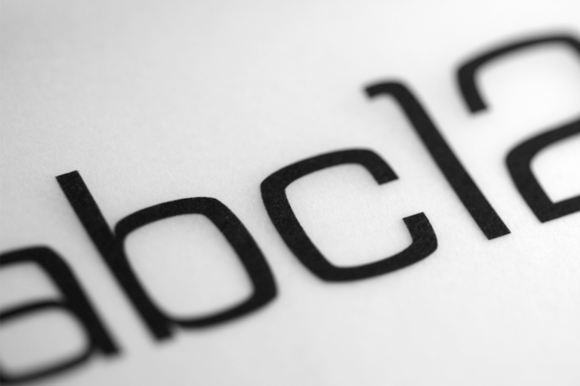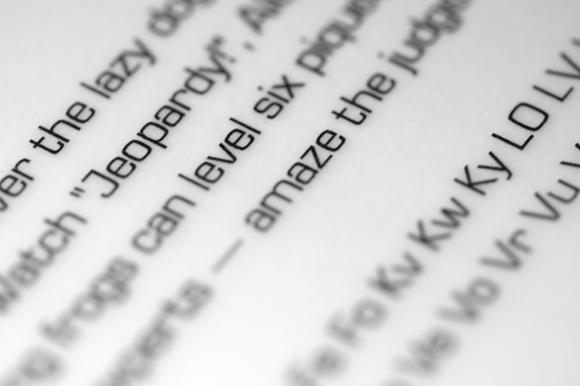
Unleashing the Power of Minimalism: Introducing Gamba Font
Have you ever stared at a blank page, waiting for the perfect font to bring your design to life? For designers, this moment of creative paralysis is all too familiar. But what if the perfect font was right in front of you, waiting to be discovered? Enter the Gamba Font, a game-changing typeface that combines futuristic shapes with high legibility and a utilitarian design.
Designed to create strong and clean layouts, the Gamba Font is more than just a pretty face. Its unique blend of personality and functionality makes it a valuable asset for designers looking to elevate their work. Whether you’re a seasoned pro or just starting out, the Gamba Font is sure to inspire your next creative project.
Gamba Font Key Features
- Font Family: Gamba is a sans-serif font family designed for digital use. It includes 8 font weights and italics.
- Character Set: Supports a wide range of languages, including Latin, Cyrillic, and Greek alphabets, with over 1,000 glyphs.
- Resolution: Designed for use at high resolutions, making it suitable for digital applications such as web design, mobile apps, and video games.
- Unique Characteristics: Gamba features a unique blend of geometric and organic shapes, resulting in a clean and modern aesthetic.
Gamba Font Review
As a designer, I’ve had the chance to work with a variety of fonts, and I recently dove into the Gamba Font. Here’s my honest take on this typeface.
- Unique Character: Gamba Font stands out with its quirky and playful feel. It’s perfect for designs that need a touch of whimsy.
- Clean Lines: The font’s clean lines and smooth curves make it easy on the eyes, even in larger font sizes.
- Legibility: Despite its unique style, Gamba Font remains highly legible, making it suitable for a wide range of applications.
- Limited Weight Options: The font family is relatively small, with only a few weight options available. This might limit its versatility in certain design projects.
- Not Ideal for Body Text: While Gamba Font is great for headings and titles, it may not be the best choice for body text due to its relatively small character set and limited line spacing options.
Gamba Font is a fun and quirky typeface that’s perfect for adding some personality to your designs. While it has its limitations, its unique character and clean lines make it a great choice for the right projects. I’d definitely consider using it for projects that require a playful touch.
Getting the Most Out of Gamba Font
For optimal results, use Gamba Font for titles and headings. Pair it with a clean sans-serif font for body text. Experiment with different font sizes and colors to create visual hierarchy and emphasis.
Gamba Font is ideal for:
- Modern and minimalist designs.
- Titles and headings.
- Branding and identity design.
Alternatives to Gamba Font for Designers
Montserrat is a modern sans-serif font designed for digital media. It’s ideal for use in headings, titles, and body text in modern websites and applications. Montserrat is similar to Gamba Font in its clean and minimalist design, but it has a more geometric feel and a larger character set.
2. Open Sans
Open Sans is a clean and highly legible sans-serif font designed for digital interfaces. It’s suitable for use in body text, headings, and titles in modern websites, applications, and publications. Open Sans is similar to Gamba Font in its simplicity and readability, but it has a more neutral tone and a larger character set.
Lato is a modern sans-serif font designed for digital media. It’s ideal for use in headings, titles, and body text in modern websites and applications. Lato is similar to Gamba Font in its clean and minimalist design, but it has a more rounded feel and a larger character set.